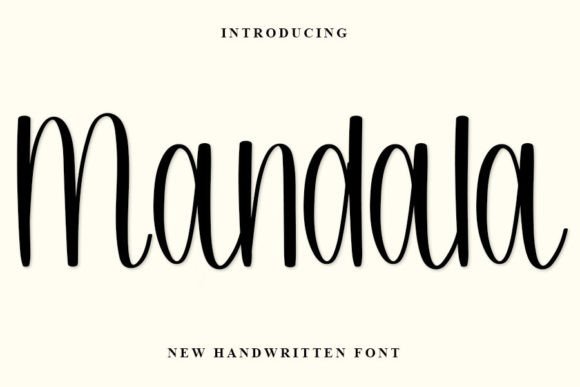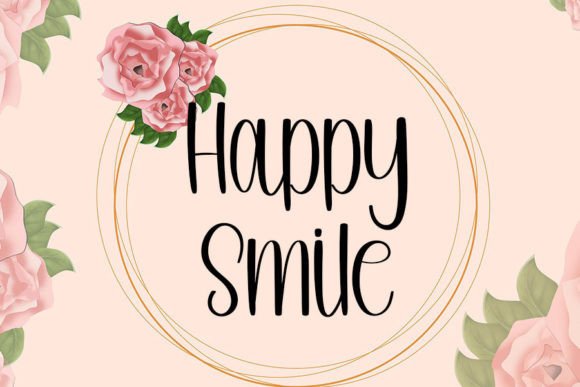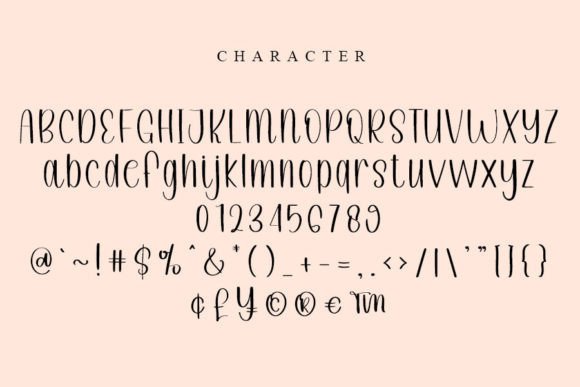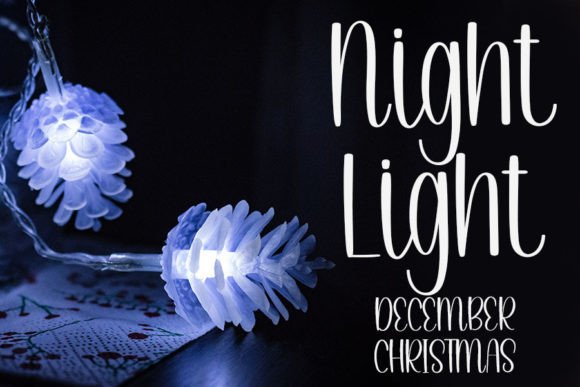
Mandala Font
About Mandala Font
Mandala font is a friendly and charming handwritten typeface designed to become a beloved favorite in your font collection. Its warm and approachable style adds a personal touch to every project. Whether you’re working on logos, invitations, branding, or digital designs, Mandala font brings your creative ideas to life with its unique handwritten flair.
Warm and Approachable Style
This font features natural strokes that mimic authentic handwriting. Mandala font’s inviting character makes it perfect for projects that require a personal and friendly look. Its balanced and clean design ensures readability while maintaining a handcrafted feel.
Ideal Uses for Mandala Font
Mandalafont works wonderfully for:
• Branding and logo designs
• Wedding and event invitations
• Greeting cards and personalized stationery
• Social media graphics and marketing materials
• Packaging design and product labels
Its friendly and stylish appearance makes it especially effective for projects that need warmth and personality.